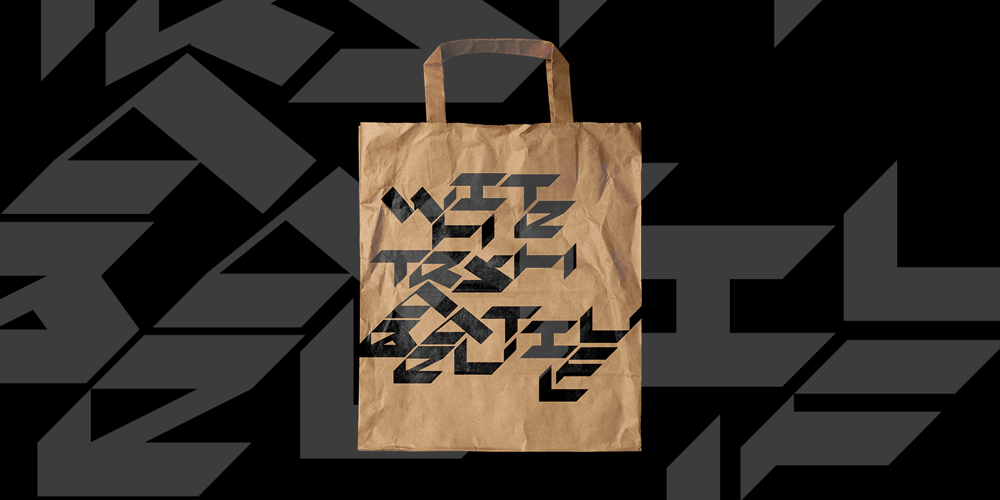
Akoyster
Akoyster font
Akoyster Font Family was designed by Aliaksei Koval and published by Koval TF. Akoyster contains 1 styles and family package options. Akoyster is a fusion of cyberpunk visual culture & contemporary calligraphy with broad nib pen. It’s ideal for eyecatching bald statements. Enjoy wiered shapes and create new future.